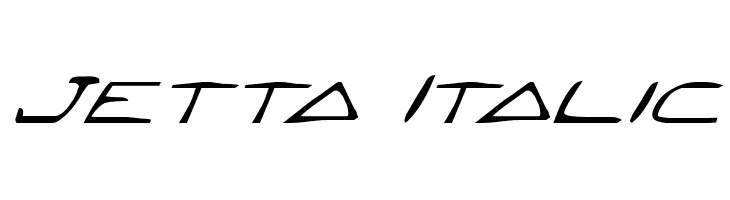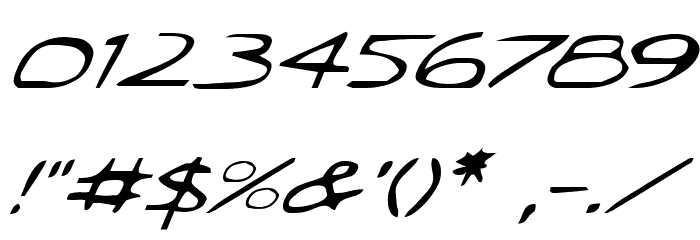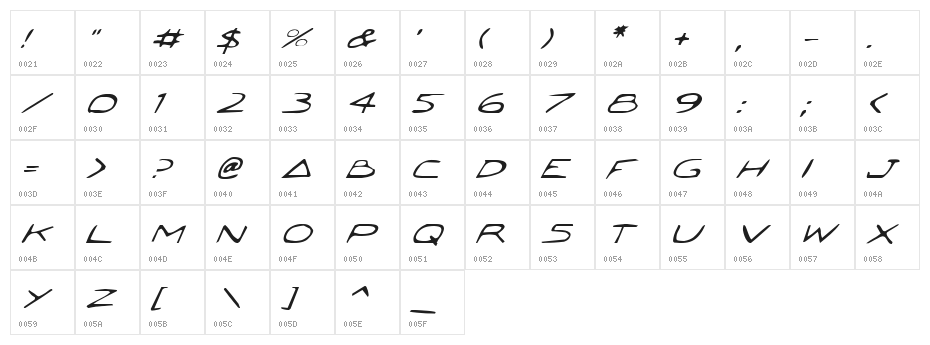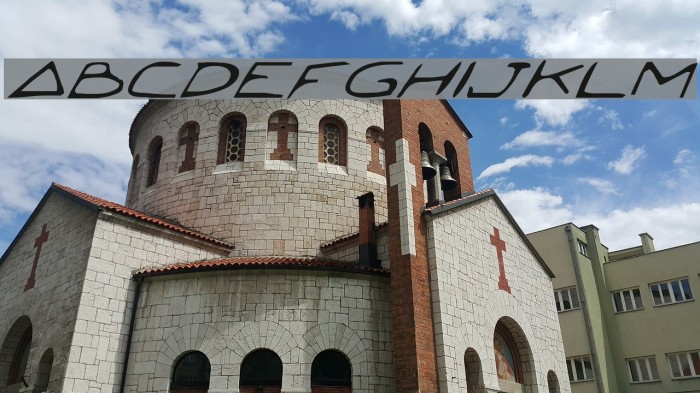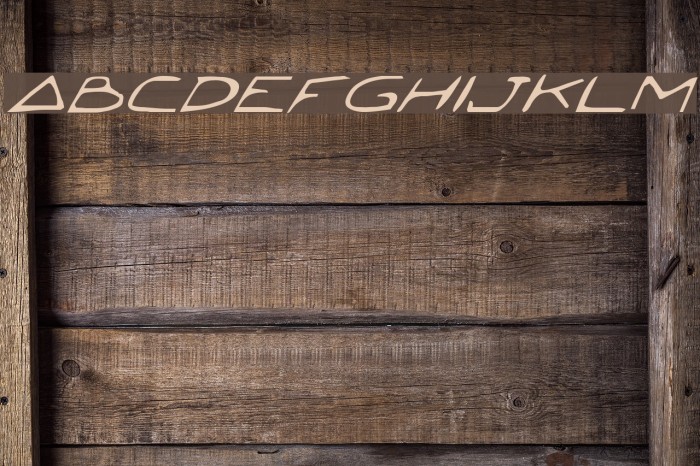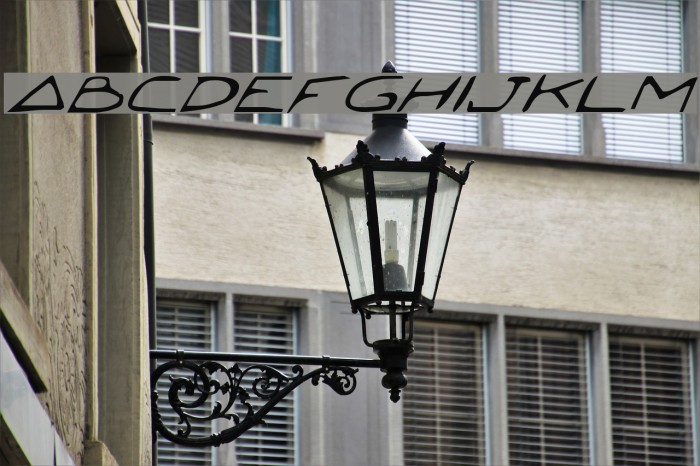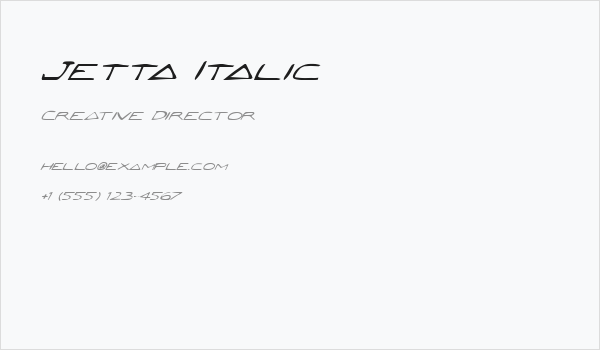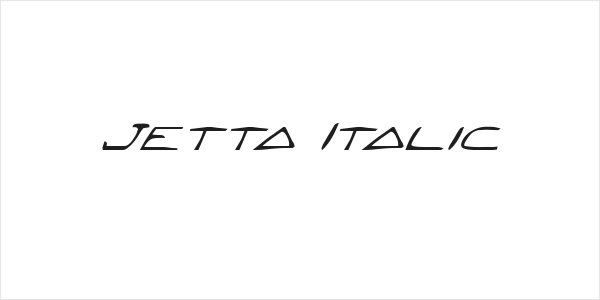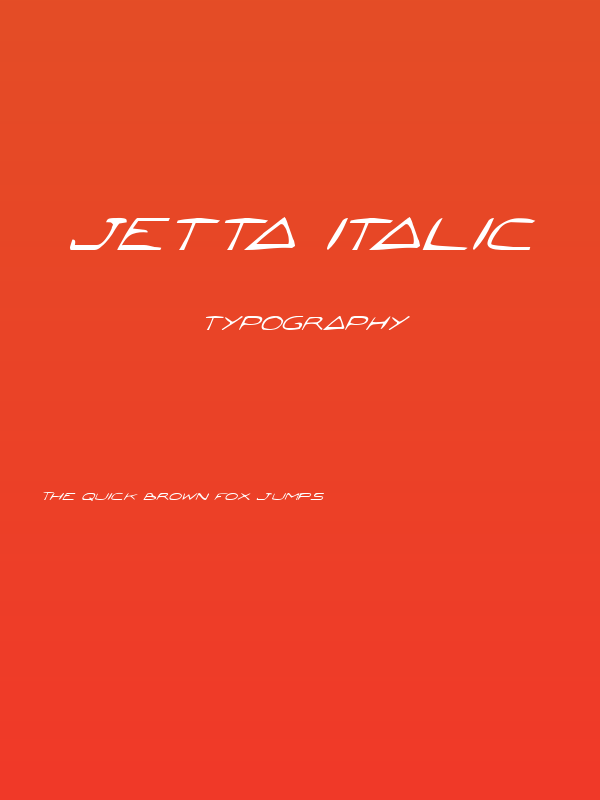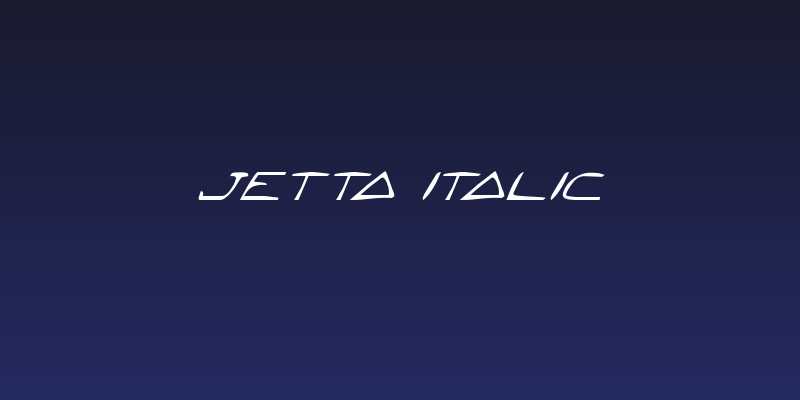
Jetta Italic Font
Jetta Italic Description
This font features a sleek, italicized design with a modern and dynamic appearance. The characters are slightly slanted, giving a sense of motion and speed. The strokes are smooth and consistent, with a medium contrast between thick and thin lines. The overall look is clean and stylish, making it suitable for contemporary designs. The uppercase and lowercase letters maintain a cohesive style, while the numerals and special characters are crafted to match the font's elegant aesthetic.
| Use Case | Logos, Headlines, Advertising |
| Proposed Projects | Ideal for automotive branding, sports team logos, dynamic advertising campaigns, and modern web design. |